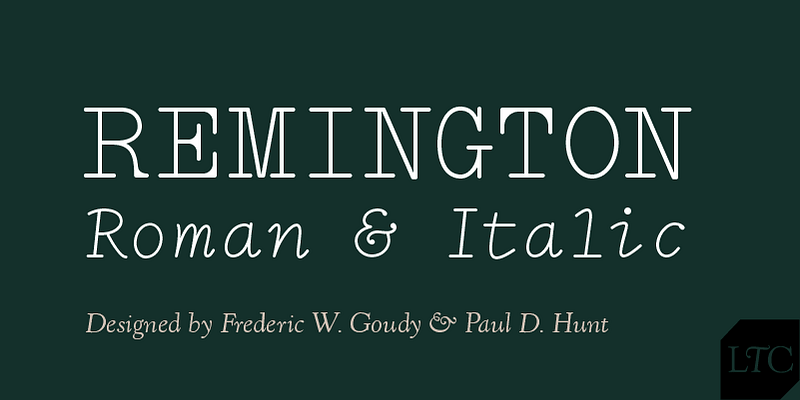
LTC Remington Typewriter Pro Font Free Download is a vintage-inspired monospaced typeface that evokes the nostalgic look and feel of classic typewriter fonts. Designed with high attention to detail, this font brings the charm of typewriter text into the digital world, offering both functionality and style. It's perfect for projects that need a retro aesthetic, such as invitations, posters, vintage branding, and creative writing layouts.
LTC Remington Typewriter Pro Font Free Download features evenly spaced characters, a classic typewriter structure, and subtle imperfections that give it an authentic, hand-typed appearance. This makes it ideal for applications such as creative writing, retro-themed designs, or any project where the essence of vintage machinery and analog design is desired.
Its versatility allows it to be used in both large display settings and smaller text applications, while its monospaced design adds a distinctive, structured look to your layouts.